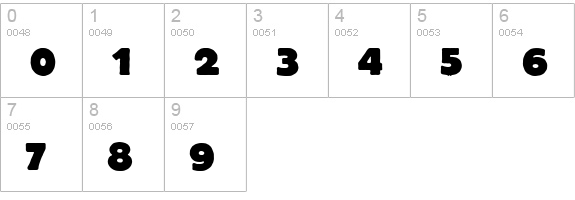
Boulder-Bold is a strong, high-contrast variant in the Boulder typeface family \xE2\x80\x94 well suited to headlines, attention-grabbing titles, and strong calls-to-action.
Boulder-Bold is a striking and robust typeface that exudes strength and confidence. Its bold and commanding presence makes it perfect for headlines, posters, and branding materials that demand attention. With its solid and sturdy letterforms, Boulder-Bold commands the viewer's gaze and leaves a lasting impression. And the best part? Boulder-Bold is available for free download at FontsMarket.com! This means that you can easily add this powerful font to your design arsenal without any cost. Don't miss out on this incredible opportunity to elevate your projects with the impactful Boulder-Bold font.